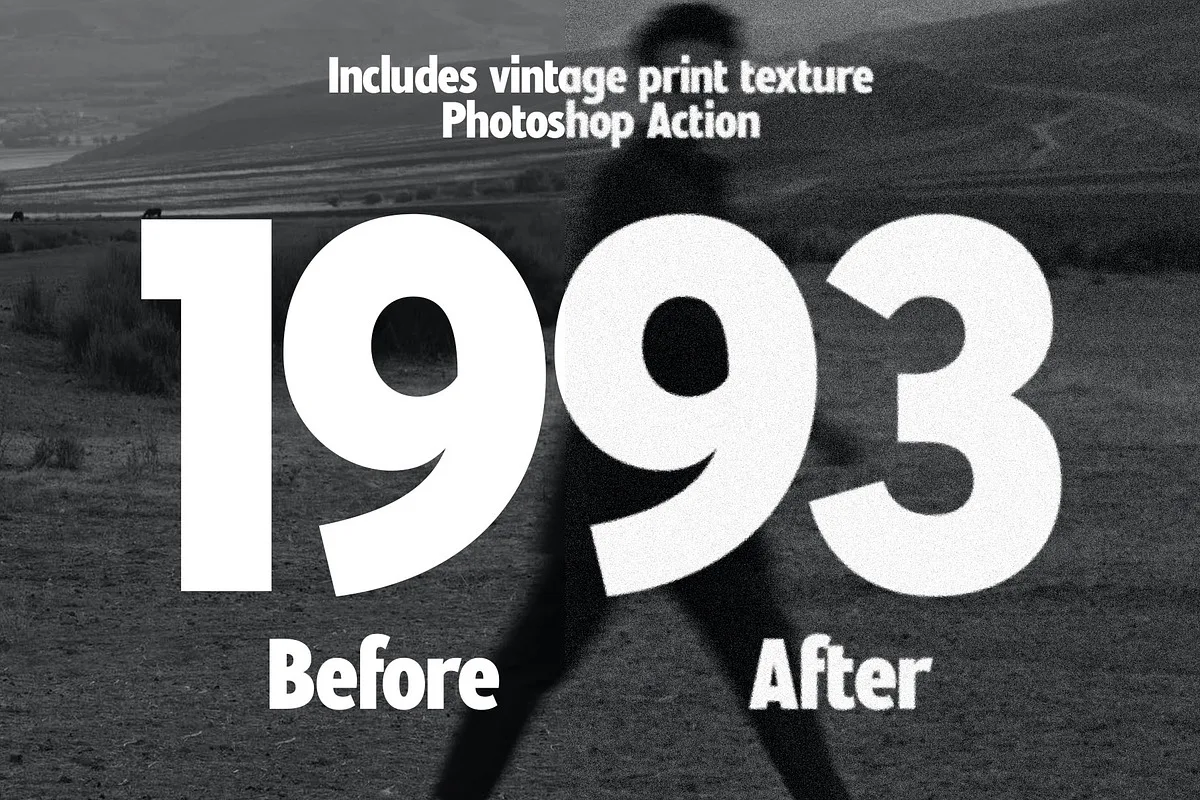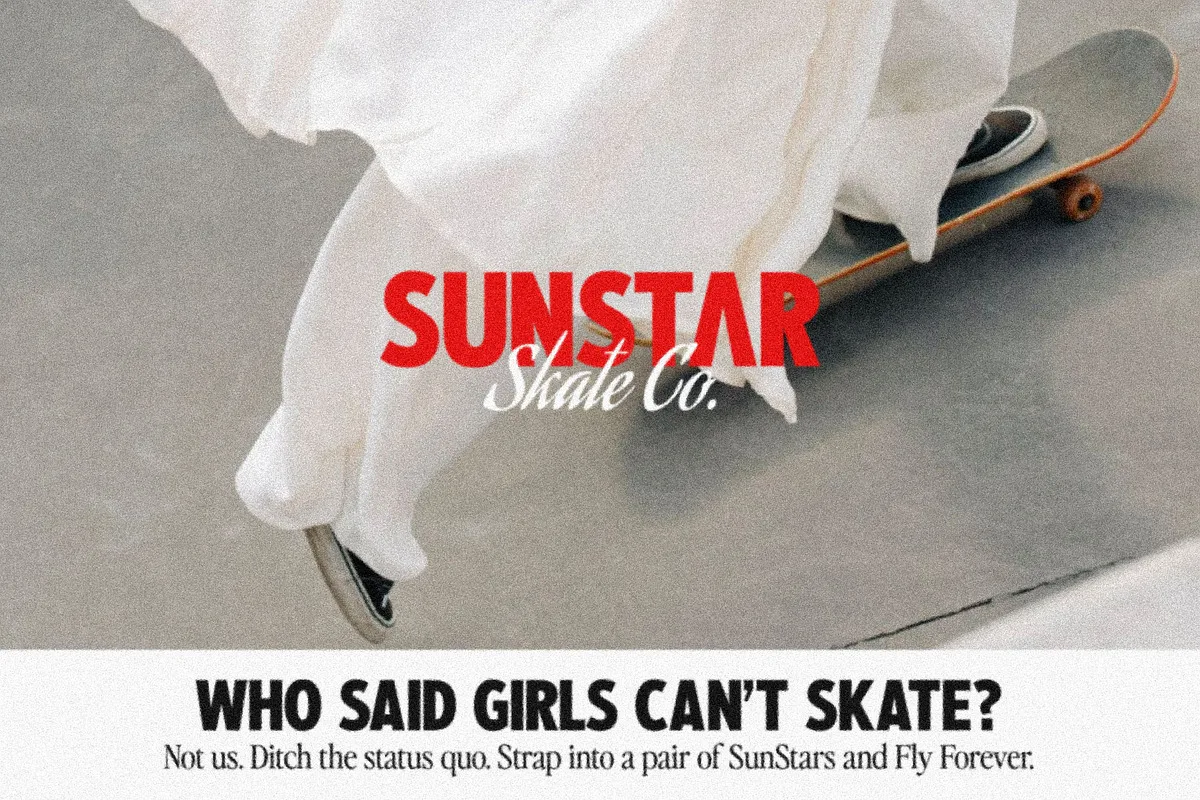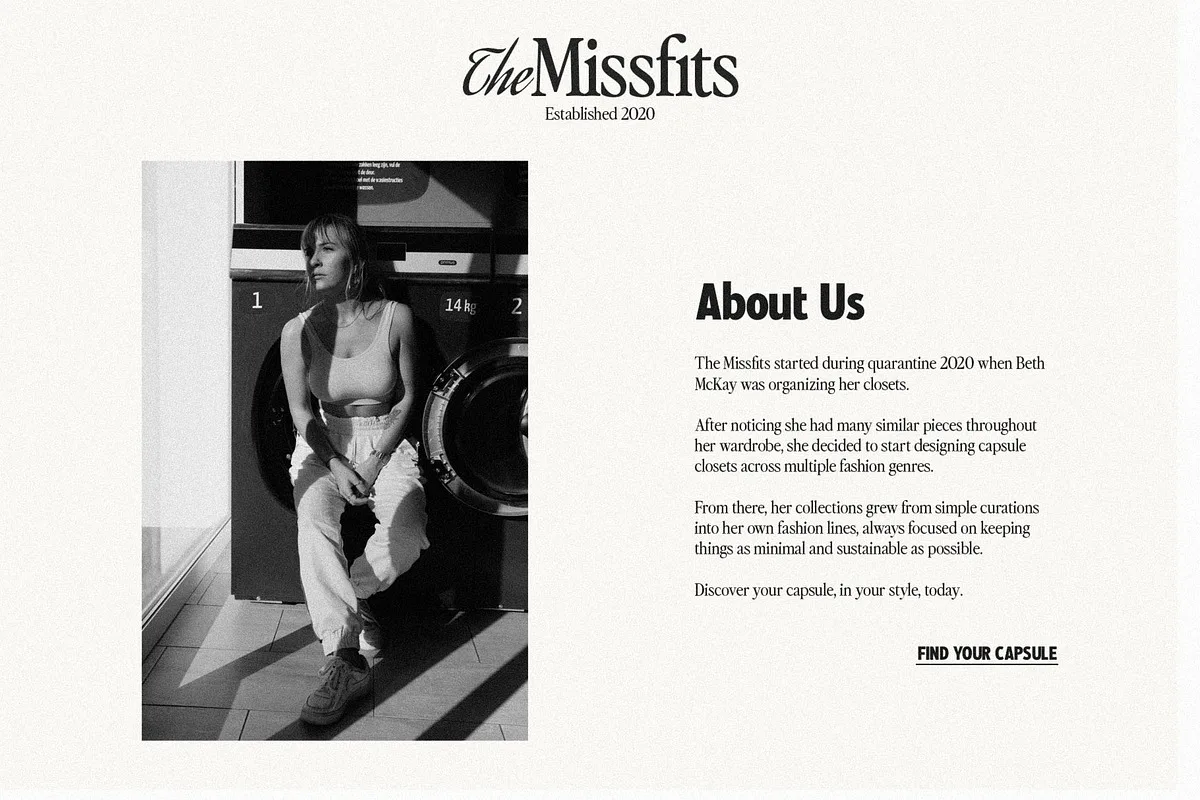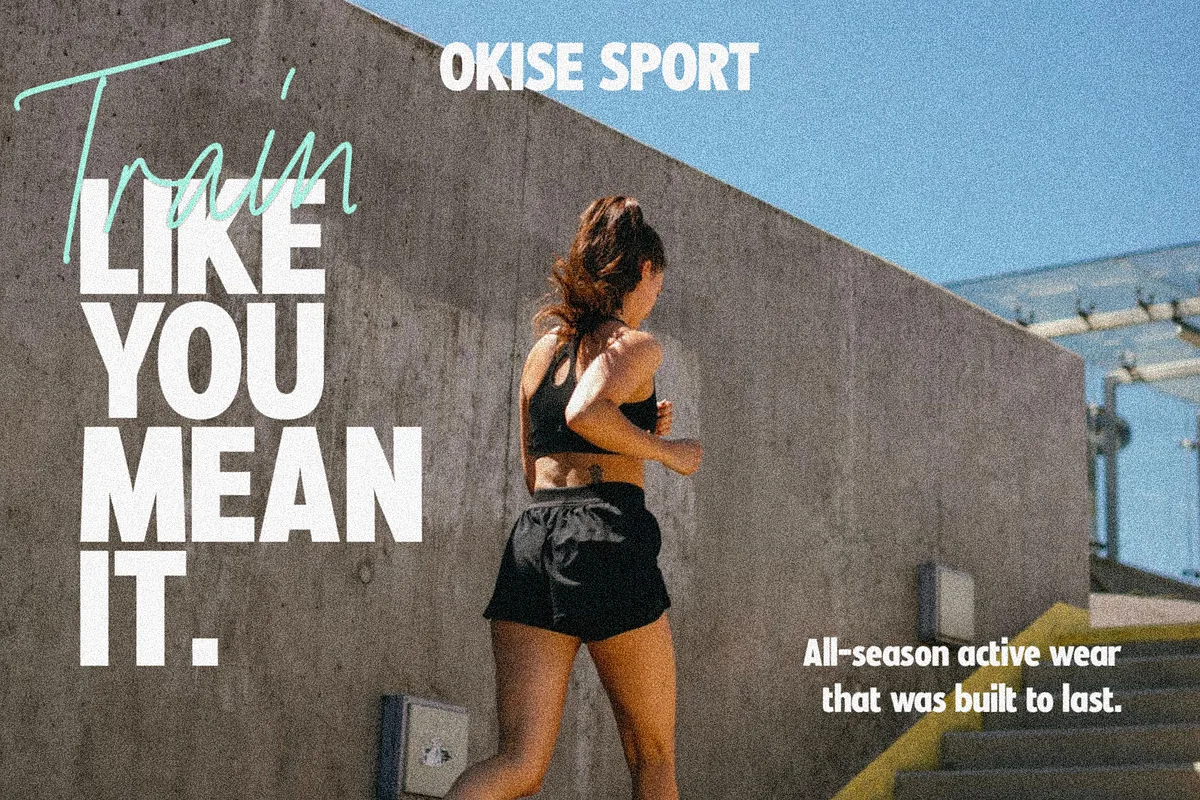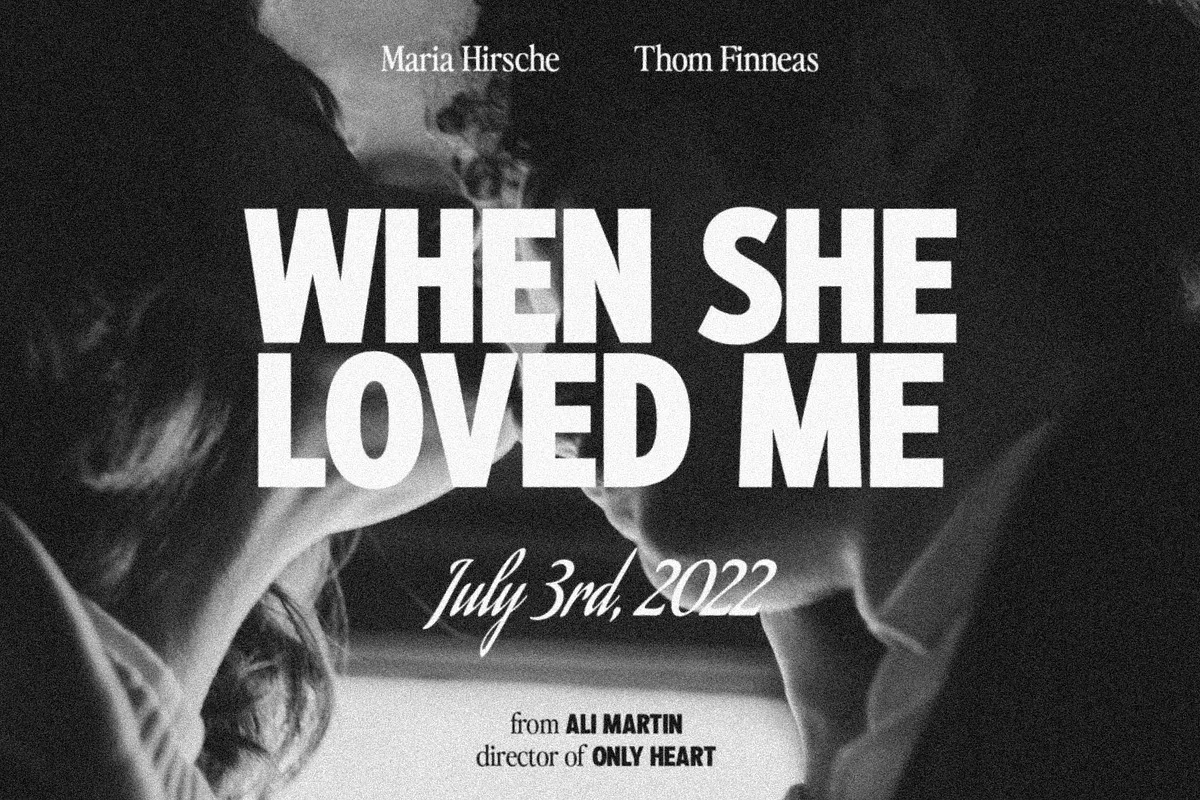
Nineties Headliner is a bold, nostalgic sans serif font inspired by text-focused magazine ads of the 80s and 90s. As the classic, text-focused design of the 80s & 90s is making a comeback! With both upper and lowercase, the Nineties Headliner works beautifully for logos or as primary header text, especially at large scale. It is made to make your design projects; logo, branding, invitation, social media ads & website have casual retro style.